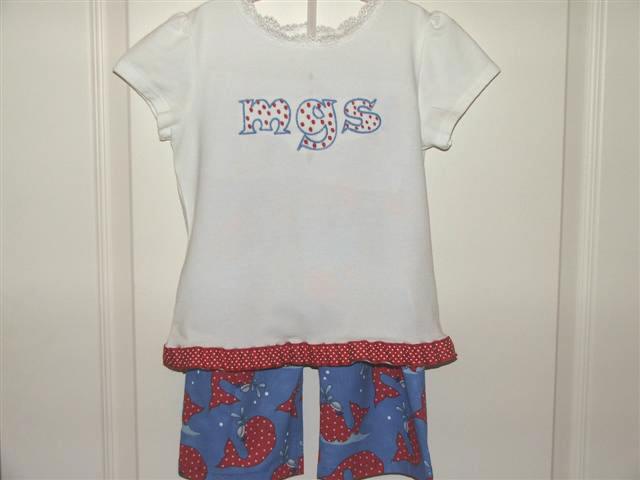
Polka Dot Font - 2 Styles
What a cute font, *POLKA DOT*!   You will receive 2 sizes and 2 styles of this SUPER CUTE set, 2 inch and 4 inch heights (both fit the 4x4 hoop).  You also receive 2 styles, applique and outline fill stitch.   You will receive a total of 150 design files, perfect for many different applications.  Can't you see these sweet monograms on a bib, diaper bag, teen's tote bag, etc.?  Digitized with 2 colors, you pick the thread colors to coordinate with any project!  These ADORABLE letters stitch out very quickly.